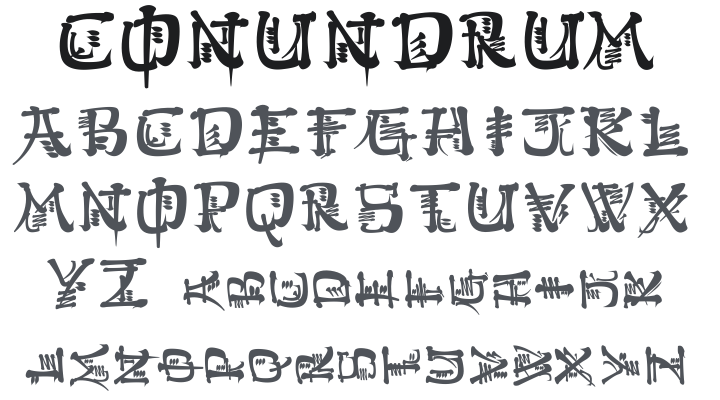
Kingthings Conundrum Font
About Kingthings Conundrum
I have said before you know - I can if I want to (Stamp! Scowl!)
Cod Chinese of the worst kind, I wanted a 'Chinese' font for a project and couldn't find what I wanted. I painted this font with a Chinese brush and imported the resultant mess - it's been a while since I did any Chinese calligraphy - add that to the fact that I don't read or speak Chinese...